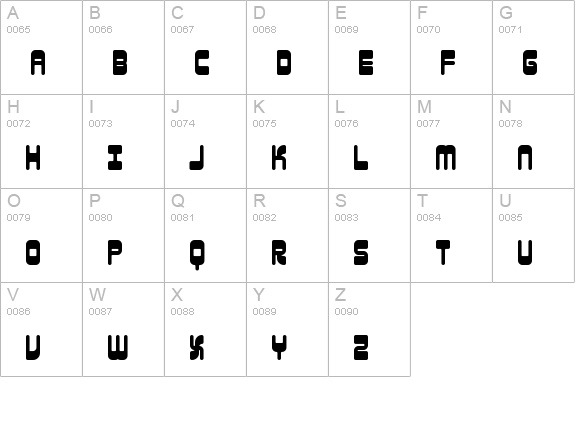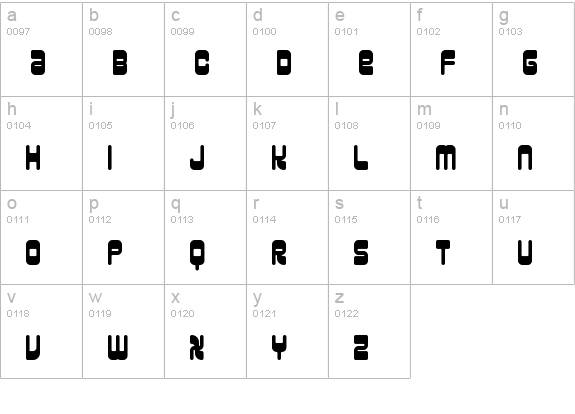
Reason BRK Font Details
Reason BRK is a stunningly sophisticated font that effortlessly blends modern aesthetics with timeless charm. With its sleek lines and elegant curves, this font is sure to captivate and inspire. Whether used for graphic design, branding, or any creative endeavor, Reason BRK adds a touch of class and refinement. One of the best things about Reason BRK is that it is available for free download at FontsMarket.com. This means that anyone can easily access and use this remarkable font without any cost. Its availability as a free download makes it an invaluable resource for designers, students, and anyone looking to enhance their projects with a touch of elegance. The versatility of Reason BRK is evident in its ability to adapt to various design styles and contexts. It seamlessly complements both modern and traditional designs, making it a truly versatile typeface. Its clean and clear letterforms ensure legibility, while its distinctive character sets it apart from other fonts. Reason BRK is not just visually appealing; it also offers a high level of functionality. Its extensive character set supports multiple languages, making it suitable for global projects. Additionally, it is available in various weights, allowing for even more creative possibilities. With Reason BRK, your designs will exude a sense of sophistication and professionalism. Whether you are working on a logo, website, or any other creative project, this font will elevate your work to new heights. Download Reason BRK for free at FontsMarket.com and let your creativity soar.